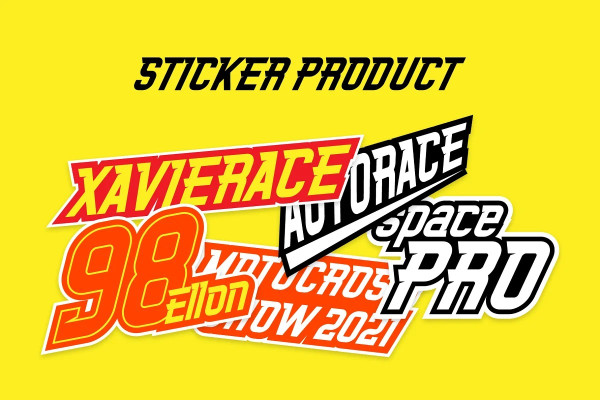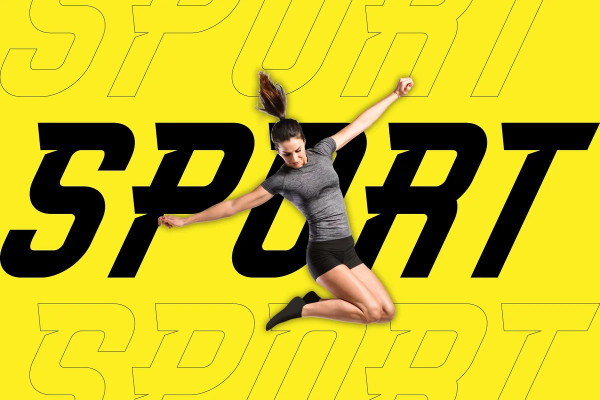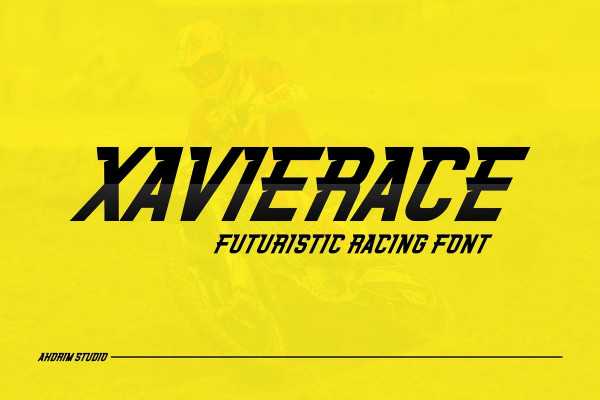
Xavierace Display Font
Xavierace Display Font, featuring a racing style with sharp lines, xavierace is perfect for car magazine covers, racing game covers, logos & brands, product designs, labels, and more.